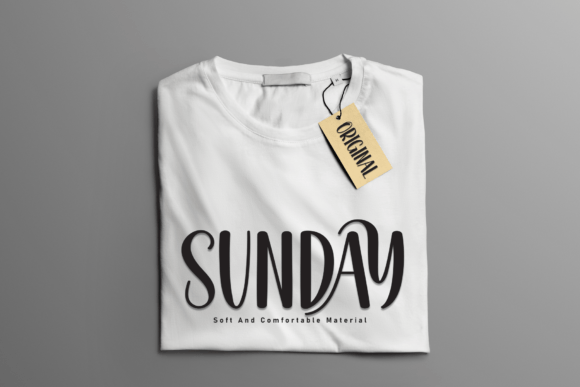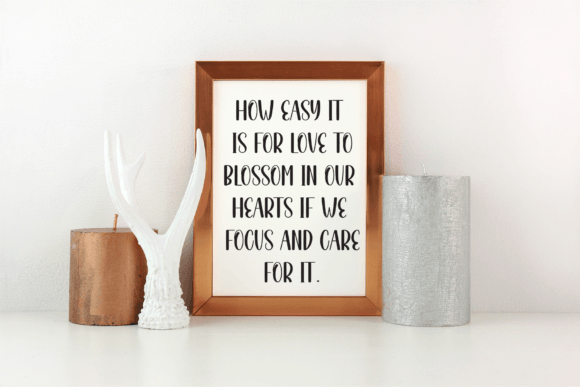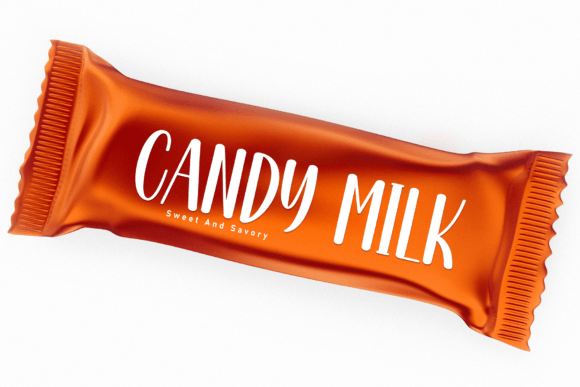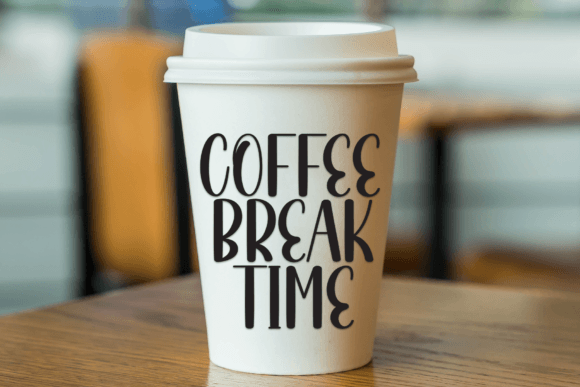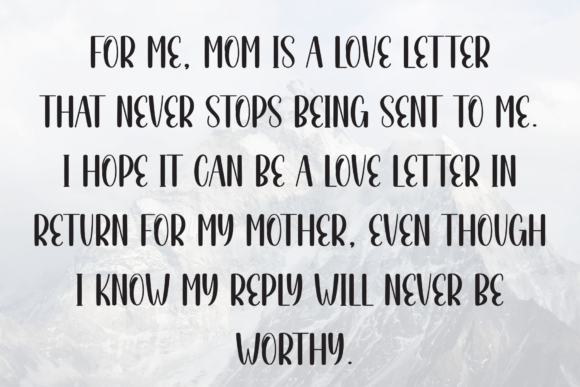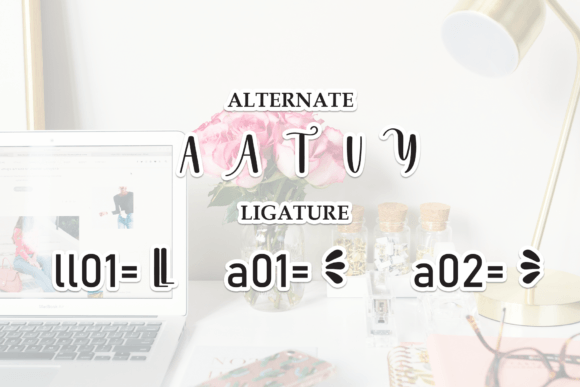
Hallo Saturday Font: The Sweet and Friendly Handwritten Font for Your Creative Projects
Are you tired of using the same old fonts for your designs? Look no further than Hallo Saturday Font, a sweet and friendly handwritten font that’s perfect for adding a personal touch to your creative projects. With its natural and unique style, Hallo Saturday Font is incredibly versatile and can be used for a wide range of designs, from DIY crafts to digital marketing materials.
The Charm of Hallo Saturday Font
Hallo Saturday Font is a beautifully crafted handwritten font that’s designed to bring a sense of warmth and friendliness to your designs. Its natural and effortless style makes it perfect for creating a relaxed and approachable atmosphere, whether you’re designing a logo, a poster, or a social media graphic.
One of the standout features of Hallo Saturday Font is its unique character. Each letter is carefully crafted to have its own distinct personality, making it perfect for adding a touch of whimsy and personality to your designs. Whether you’re creating a design for a children’s product, a wedding invitation, or a craft project, Hallo Saturday Font is sure to bring a smile to your audience’s face.
The Benefits of Using Hallo Saturday Font
So why choose Hallo Saturday Font for your next design project? Here are just a few benefits of using this sweet and friendly font:
- Versatility: Hallo Saturday Font is incredibly versatile and can be used for a wide range of designs, from digital marketing materials to DIY crafts.
- Uniqueness: With its natural and unique style, Hallo Saturday Font is sure to make your designs stand out from the crowd.
- Friendliness: The font’s friendly and approachable style makes it perfect for creating a relaxed and welcoming atmosphere.
How to Use Hallo Saturday Font in Your Designs
Using Hallo Saturday Font in your designs is easy. Here are a few tips to get you started:
- Pair it with other fonts: Hallo Saturday Font pairs well with other fonts, so feel free to experiment with different combinations to find the perfect look for your design.
- Use it for headings and titles: The font’s bold and playful style makes it perfect for headings and titles.
- Add some personality: Use Hallo Saturday Font to add a touch of personality to your designs, whether you’re creating a logo, a poster, or a social media graphic.
Design Ideas Using Hallo Saturday Font
So what can you create with Hallo Saturday Font? Here are a few design ideas to get you started:
- DIY crafts: Use Hallo Saturday Font to create custom labels, cards, and other DIY crafts.
- Social media graphics: Add a touch of personality to your social media graphics with Hallo Saturday Font.
- Logos and branding: Use Hallo Saturday Font to create a unique and memorable logo for your business or brand.
- Wedding invitations: The font’s elegant and sophisticated style makes it perfect for wedding invitations and other formal events.
In conclusion, Hallo Saturday Font is a sweet and friendly handwritten font that’s perfect for adding a personal touch to your creative projects. With its natural and unique style, Hallo Saturday Font is incredibly versatile and can be used for a wide range of designs. Whether you’re a designer, crafter, or DIY enthusiast, Hallo Saturday Font is sure to become a favorite in your font collection.